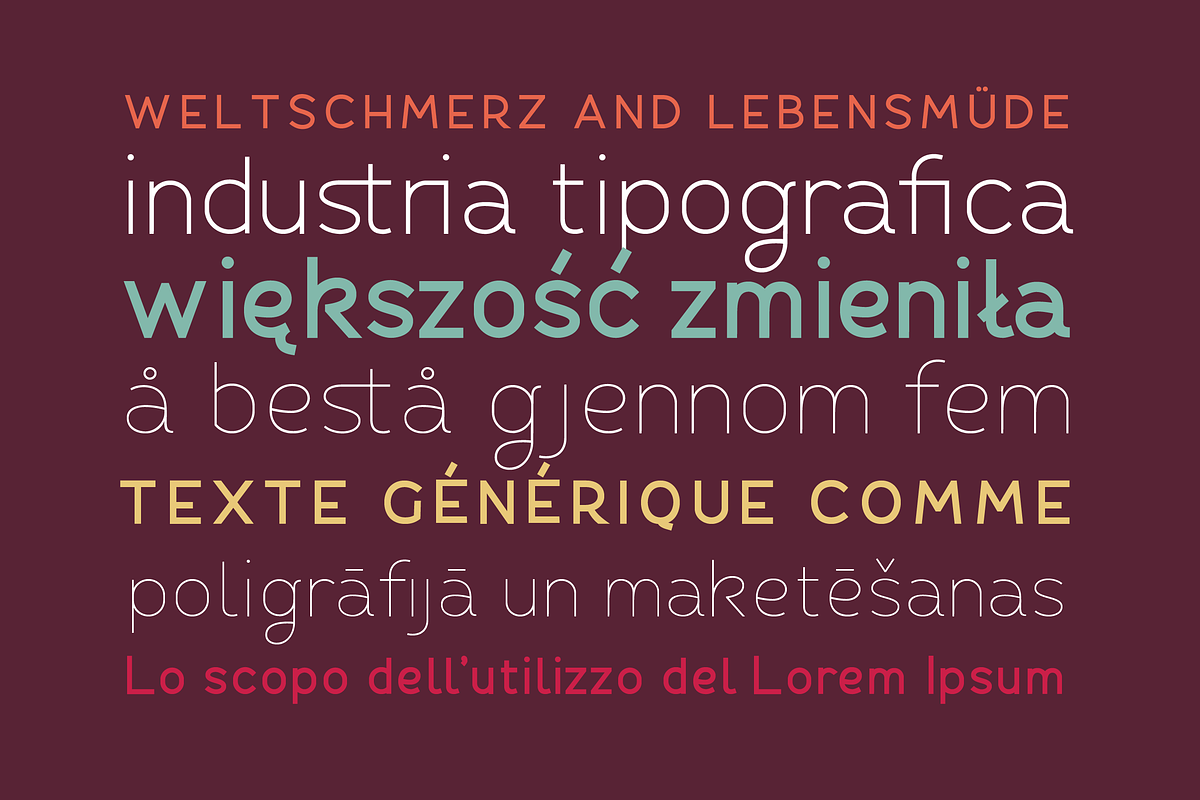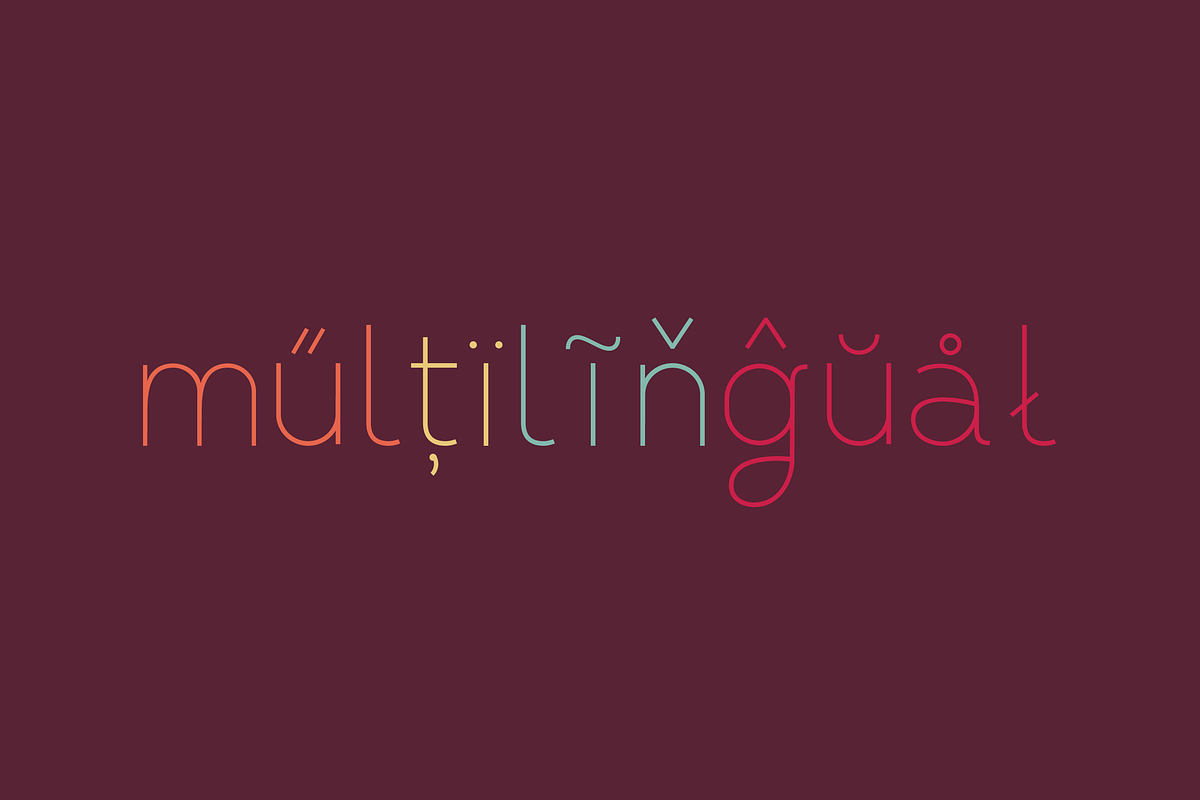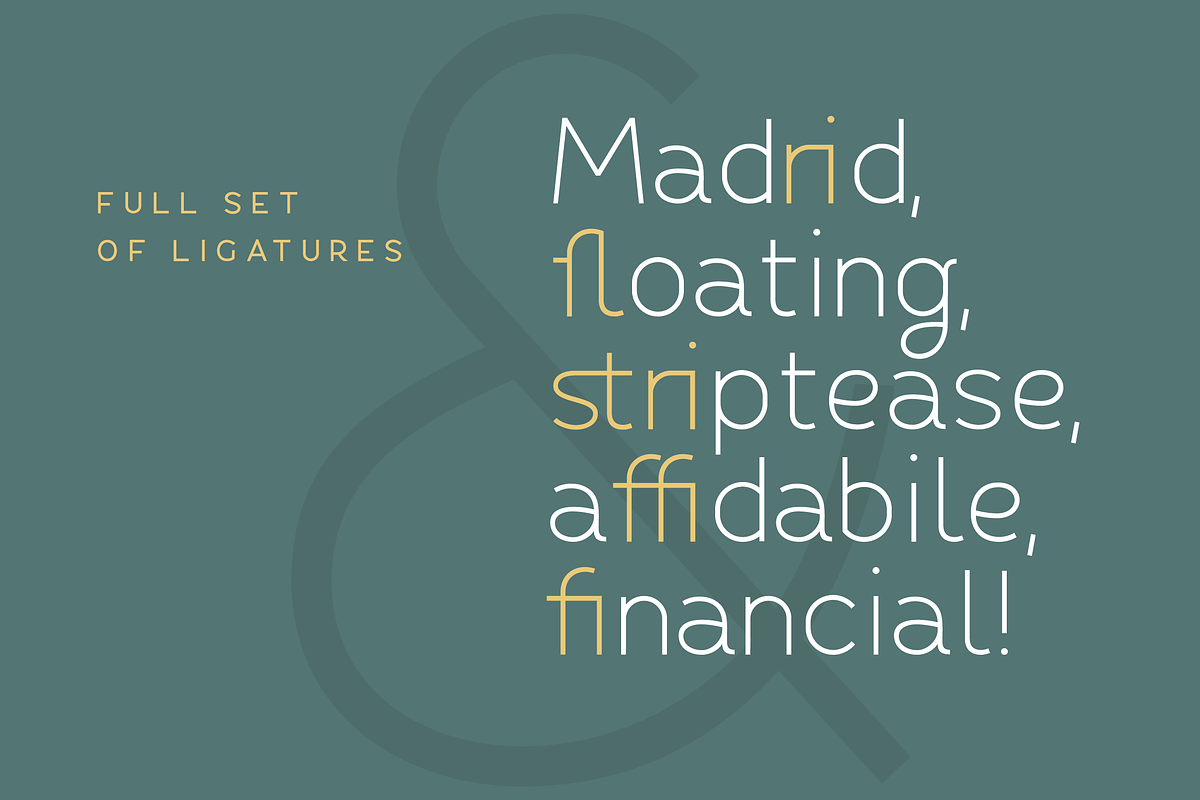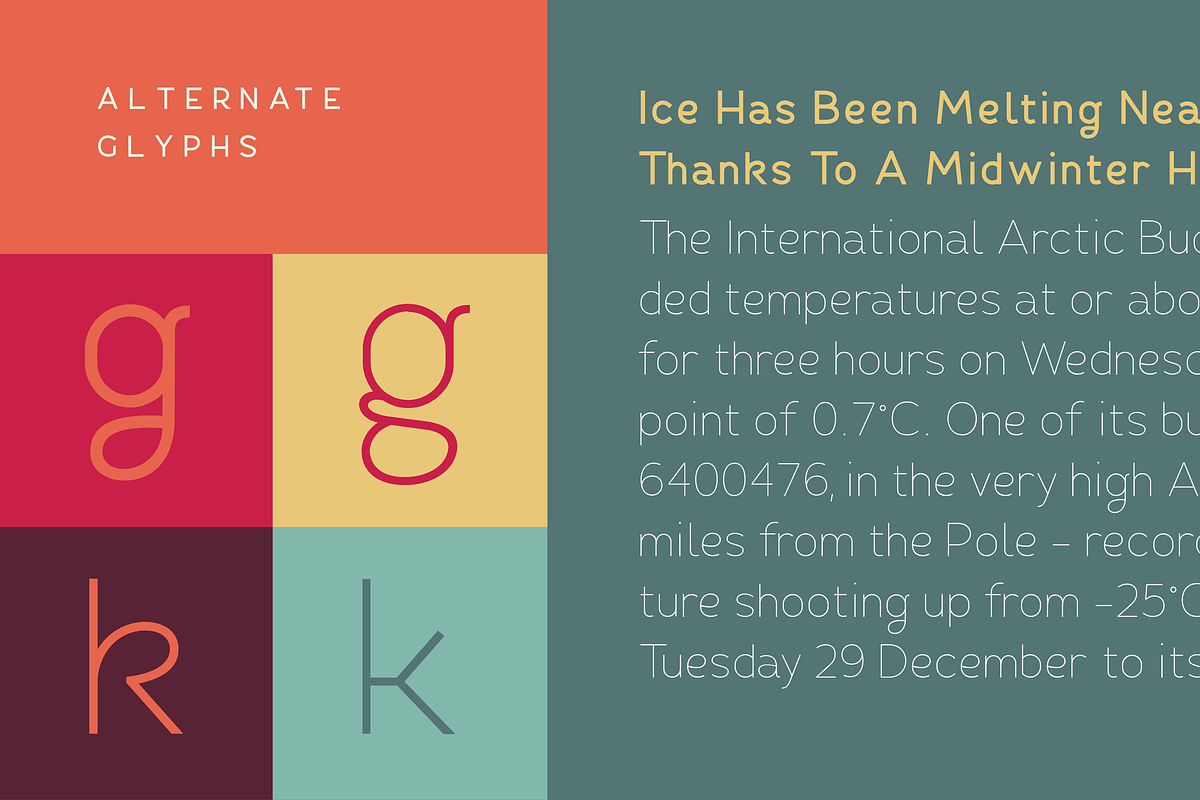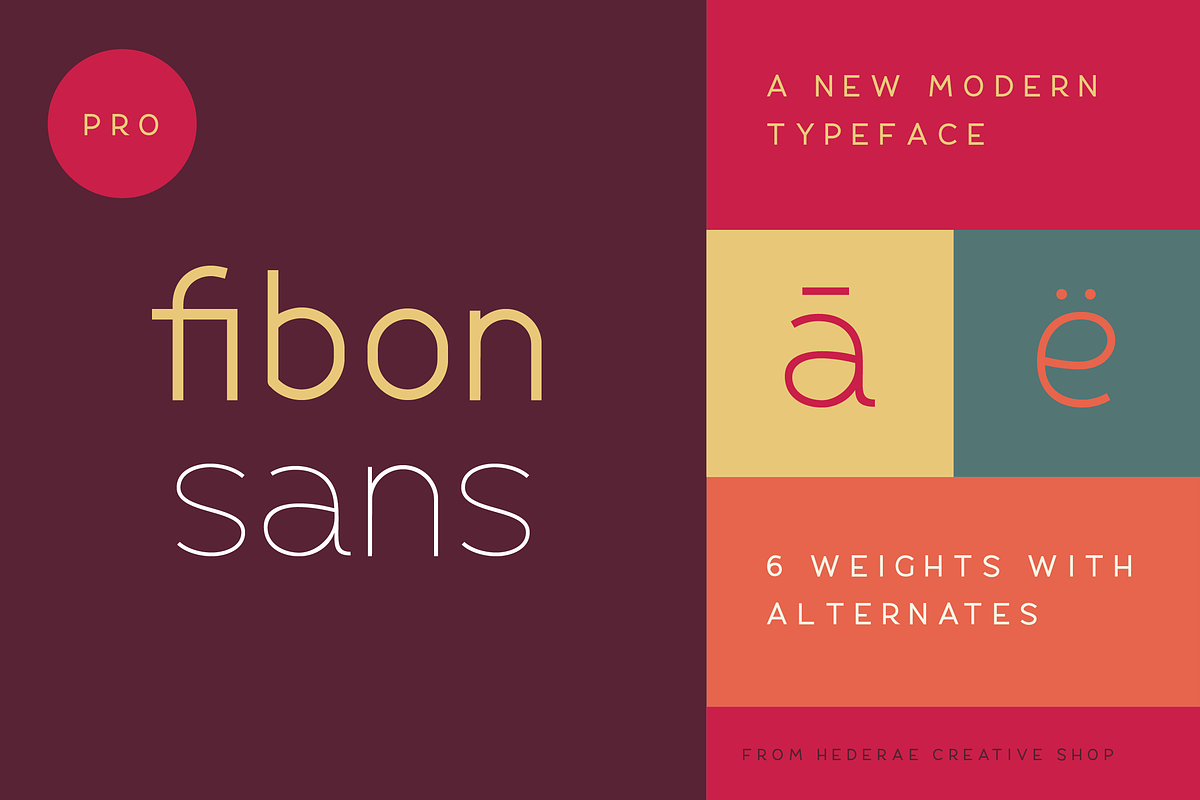
Fibon Sans Font Family
Fibon Sans Font Family by Hederae Type Foundry is a font selected for branding, posters, packaging, typography.
- Fibon Sans Thin
- Fibon Sans Light
- Fibon Sans Regular
- Fibon Sans Medium
- Fibon Sans Bold
- Fibon Sans ExtraBold
Why Fibon Sans Font Family is worth a look
Fibon Sans Font Family by Hederae Type Foundry fits naturally into Branding, posters, packaging, typography.